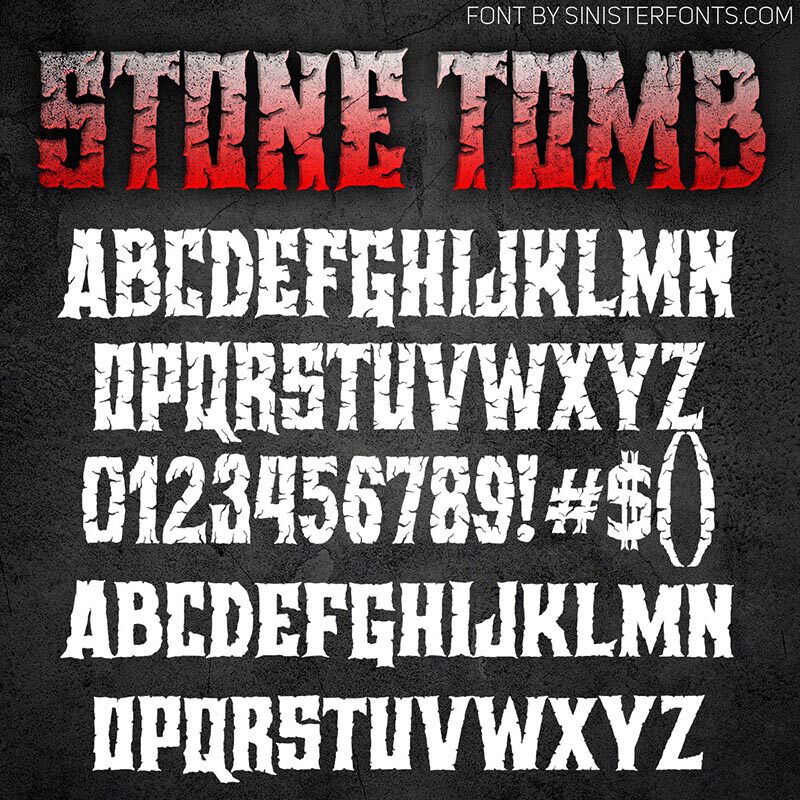
Stone Tomb font family by Sinister Fonts comprises two font styles, delivering a formidable and versatile typographic solution suitable for a variety of situations. This free font falls in the holiday category, combining it with a seemingly grunge-inspired aesthetic. The irregular form of this type can seem fun in designs, but the overall all-caps design also works in more serious, sensitive contexts.
This typeface evokes a particular intensity in poster designs, T-shirt designs, titles, branding, graphics, and logos. It also fits into games, movie posters, music events, announcements, and whatever other fun things you can come up with.
Stone Tomb Font by Chad Savage
This font is designed for specialty and graphic uses, and it may not hold up well in standard paragraph format.